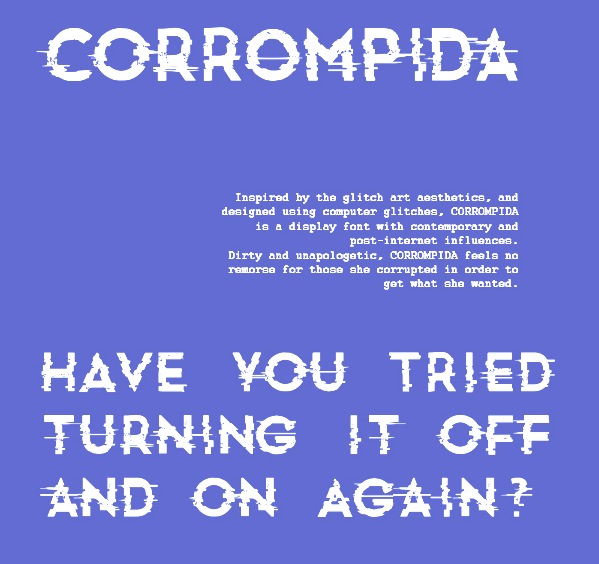
João Gabriel Oliveira
During his studiies at UFSC, Florianopolis, Brazil-based João Gabriel Oliveira created the grungy typeface Corrompida (2014). Behance link. |